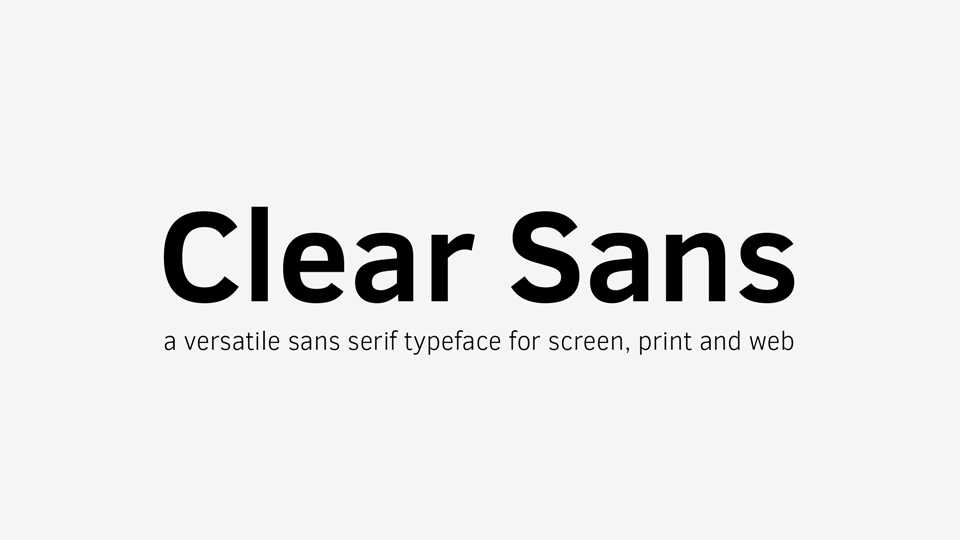
Download Clear Sans typeface, a versatile sans serif font family for screen, print and web. Clear Sans was designed with on-screen legibility in mind and strikes a balance between contemporary, professional, and stylish expression and thoroughly functional purpose.
Designer: Daniel Ratighan